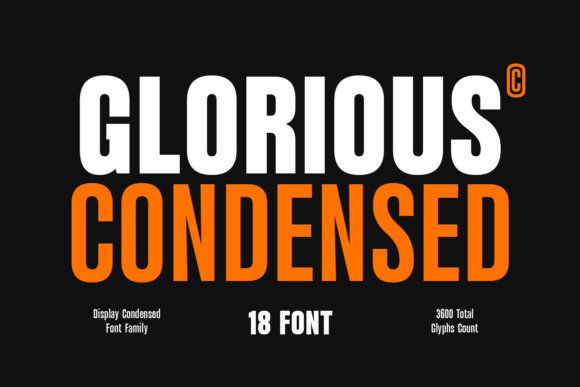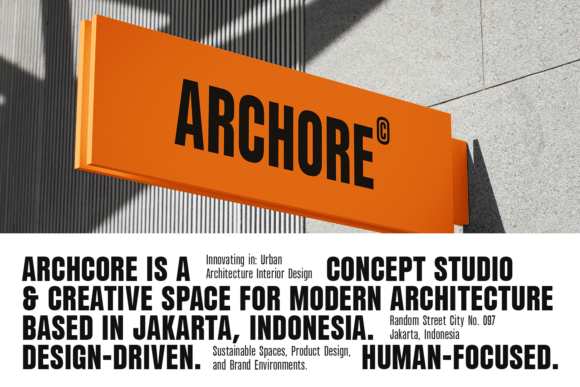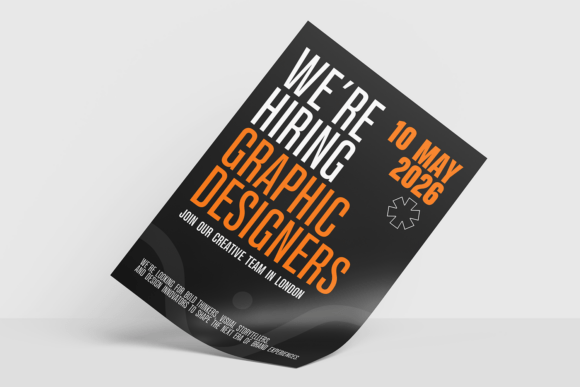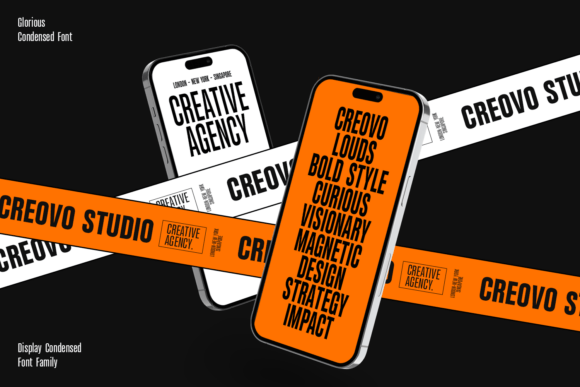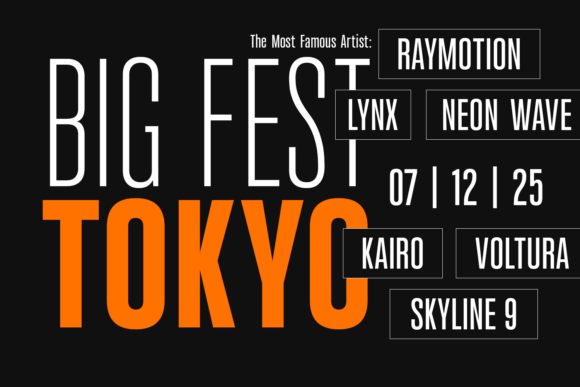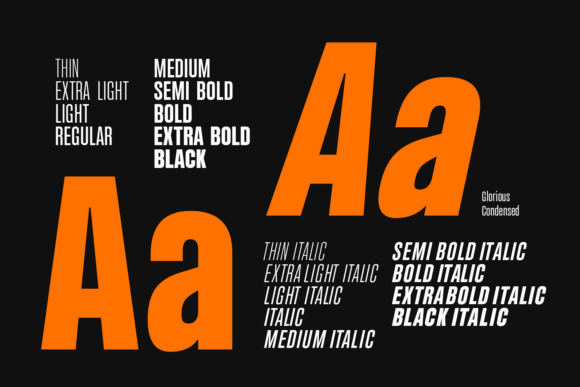
Introduction to Glorious Condensed Font
Glorious Condensed is a contemporary powerhouse, an 18-style condensed font family defined by its commanding, tall, and narrow proportions and refined structure, built for maximum headline impact.
The fontโs absolute uniqueness lies in its exceptional vertical economy and refined geometric edges, which allow for massive text sizes while maintaining superior readability and a modern, assertive tone Essential for eye-catching editorial layouts, impactful posters, sports and gaming headers, aggressive brand identities, and any project that requires a bold, professional, and visually dominant display typeface that screams urgency and importance.
Key Features of Glorious Condensed Font